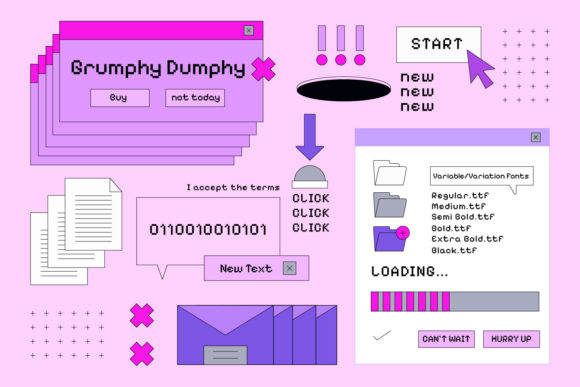
Grumphy Dumphy Font: The Ultimate Retro Pixel Display Font
Are you looking for a font that can transport you and your audience back to the radical 90’s? Look no further than Grumphy Dumphy, a 90’s pixel display font that’s perfect for retro party designs, game creation, and any project that demands a nostalgic vibe.
What is Grumphy Dumphy Font?
Grumphy Dumphy is a pixelated display font inspired by the graphics of the 1990s. It features a unique, blocky design that’s reminiscent of old-school video games, VHS tapes, and cassette players. The font is made up of tiny pixels that come together to form bold, chunky letters that are sure to grab attention.
Key Features of Grumphy Dumphy Font
- Retro aesthetic: Grumphy Dumphy’s pixelated design is straight out of the 90’s, making it perfect for projects that require a nostalgic feel.
- Highly legible: Despite its pixelated nature, Grumphy Dumphy is surprisingly easy to read, even at small sizes.
- Versatile: This font can be used for a wide range of projects, from game development to party invitations, and even website headers.
Uses for Grumphy Dumphy Font
Grumphy Dumphy’s unique design makes it suitable for a variety of projects, including:
- Retro game development: Add a touch of nostalgia to your game’s title screen, menus, or even in-game text.
- Party invitations: Create eye-catching invitations for retro-themed parties, complete with pixelated graphics and fonts.
- Graphics design: Use Grumphy Dumphy to add a retro flair to your graphics, such as posters, flyers, or social media graphics.
- Web design: Add a dash of nostalgia to your website’s header, navigation menu, or even body text.
Benefits of Using Grumphy Dumphy Font
So why choose Grumphy Dumphy over other fonts? Here are just a few benefits:
- Instant nostalgia: Grumphy Dumphy’s retro design instantly evokes memories of the 90’s, making it perfect for projects that require a nostalgic feel.
- Attention-grabbing: The font’s bold, pixelated design is sure to grab attention and make your project stand out.
- Easy to pair: Grumphy Dumphy pairs well with a variety of other fonts, making it easy to create a cohesive design.
Tips for Using Grumphy Dumphy Font
To get the most out of Grumphy Dumphy, follow these tips:
- Use it sparingly: While Grumphy Dumphy is a great font, it can be overwhelming if used excessively. Use it for headings or titles, and pair it with a more readable font for body text.
- Experiment with colors: Grumphy Dumphy looks great in a variety of colors, from bright and bold to muted and pastel. Experiment with different colors to find the perfect fit for your project.
- Don’t forget about texture: Add an extra layer of depth to your design by incorporating textures or gradients that complement Grumphy Dumphy’s pixelated design.
Grumphy Dumphy is a unique and versatile font that’s perfect for projects that require a retro, pixelated aesthetic. With its bold design, ease of use, and instant nostalgia factor, it’s a great choice for designers looking to add a touch of the 90’s to their work. So why not give Grumphy Dumphy a try and see how it can elevate your next project?